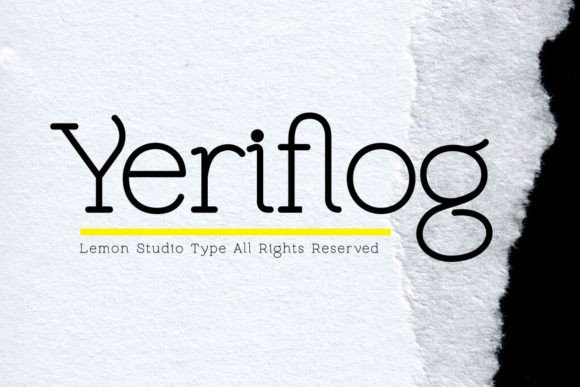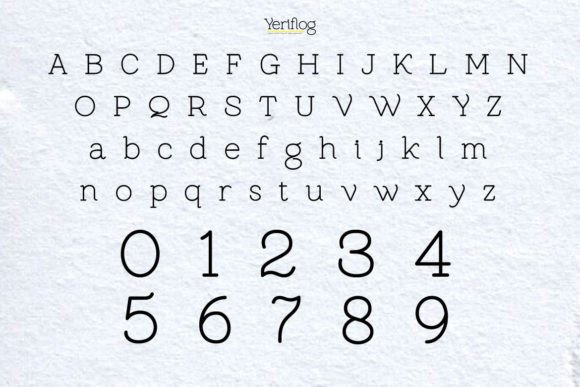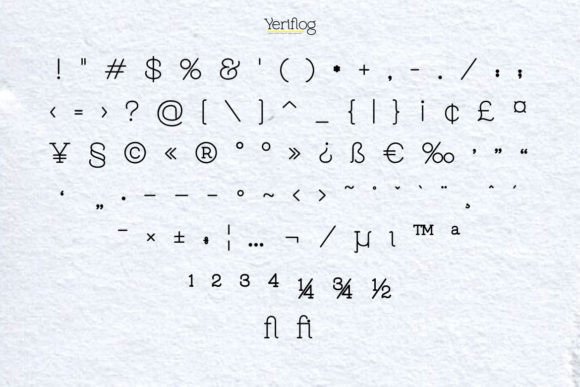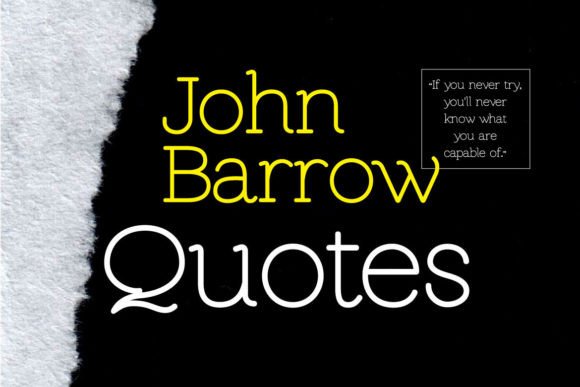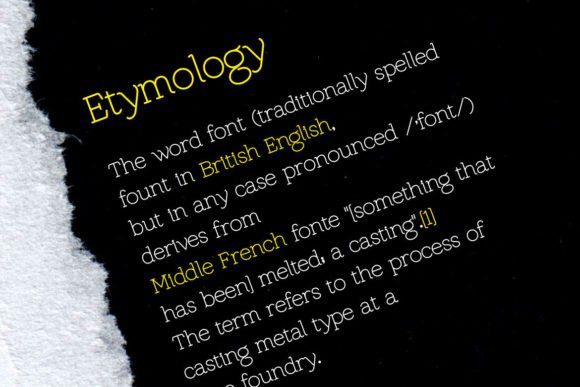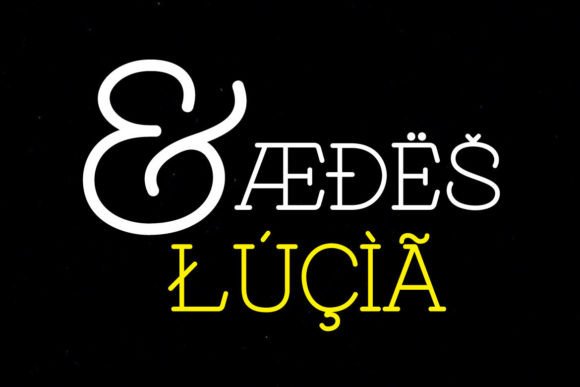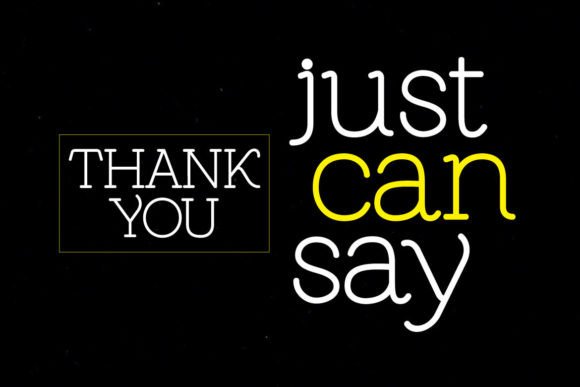
Yeriflog
About Yeriflog
Yeriflog is a cool and neat slab serif font. The shapes give a modern contemporary touch and the rounded edges make it look special and a little quirky.